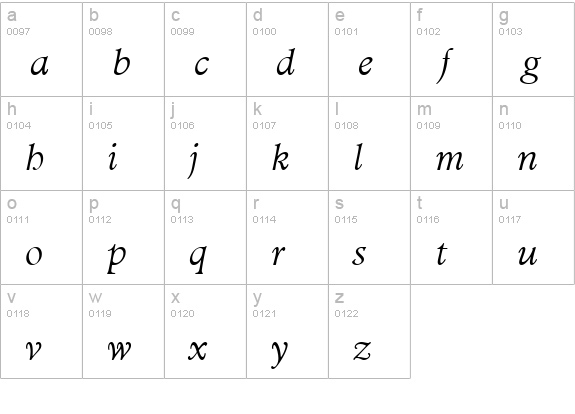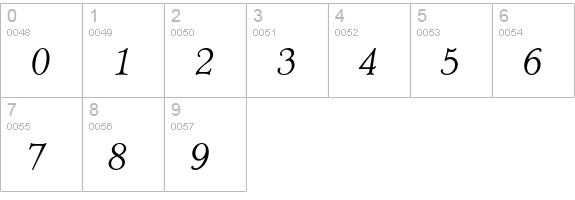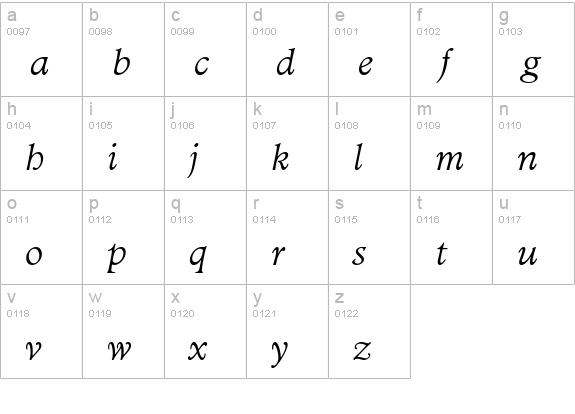
MinisterTLig Italic is a distinctive, italic variant in the MinisterTLig typeface family \xE2\x80\x94 well suited to design and typography projects.
MinisterTLig Italic font is a stylish and elegant typeface designed for modern and sophisticated projects. With its graceful curves and sleek lines, this font exudes a sense of refinement and professionalism. The italicized style adds a touch of flair and sophistication to any design. What sets MinisterTLig Italic font apart is that it is available for free download at FontsMarket.com. This means that you can easily access this premium font without any cost, making it a valuable addition to your font collection. Whether you are working on branding, editorial design, or any creative project, MinisterTLig Italic font is sure to elevate your work with its timeless appeal and versatility. Download it today and add a touch of elegance to your designs.